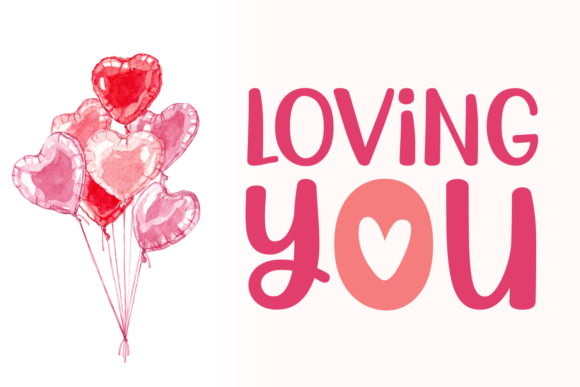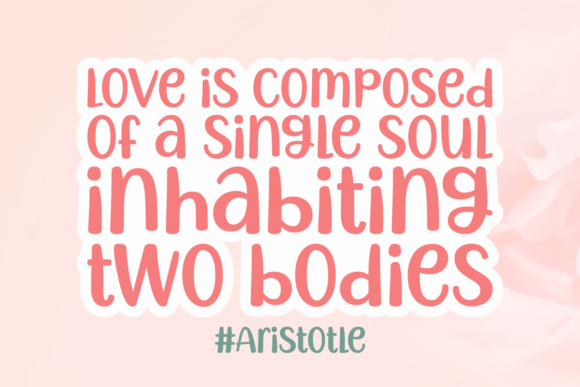
The Perfect Match for Your Creative Projects
Have you ever been in a rush to finish a design project, only to find the perfect font eluding you? It’s a frustrating experience, especially when the deadline is looming. But what if I told you that I’ve found a font that’s sure to be the perfect match for your next creative project? Introducing the Bright Lover Font, a simple yet lovely display font that’s perfect for a variety of applications.
Whether you’re designing a logo, product packaging, or an invitation, the Bright Lover Font is sure to bring a touch of personality to your work. Its playful nature makes it an excellent choice for designers looking to add a bit of whimsy to their projects. With the Bright Lover Font, you’ll be able to create eye-catching headlines, signage, and labels that are sure to grab attention.
Bright Lover Font Key Features
- Font Family: Bright Lover Font is a unique, modern sans-serif font designed for various digital applications.
- Unique Characteristics: Bright Lover Font features a distinctive, rounded edge design with subtle flair at the terminals, creating a clean and modern aesthetic.
Bright Lover Font Review
✨ The first thing that caught my attention about Bright Lover Font was its unique and playful personality. It’s perfect for designers who want to add a touch of whimsy to their projects. The font is highly customizable, with a wide range of styles and weights available, making it easy to adapt to different design needs.
✨ I also appreciate the font’s legibility, even at smaller sizes. It’s clear that the designer has put a lot of thought into creating a font that is both aesthetically pleasing and functional. The font’s curves and lines are well-balanced, making it easy to read.
⚠️ One of the limitations of Bright Lover Font is its lack of versatility in more formal or professional settings. The font’s playful nature may not be suitable for projects that require a more serious or traditional tone. Additionally, the font may not be compatible with all operating systems or devices, which could lead to formatting issues.
Overall, Bright Lover Font is a great addition to any designer’s toolkit. While it may have some limitations, its unique personality and customizability make it a great choice for designers who want to add a touch of creativity to their projects.
- Unique and playful personality
- Legible even at smaller sizes
- Well-balanced curves and lines
- Lack of versatility in formal or professional settings
- Use it for titles and headings to add a touch of elegance and sophistication.
- Experiment with different font sizes and colors to create a unique visual effect.
- Pair it with other fonts to create a visually appealing contrast.
Bright Lover Font is perfect for:
- Editorial and publishing projects.